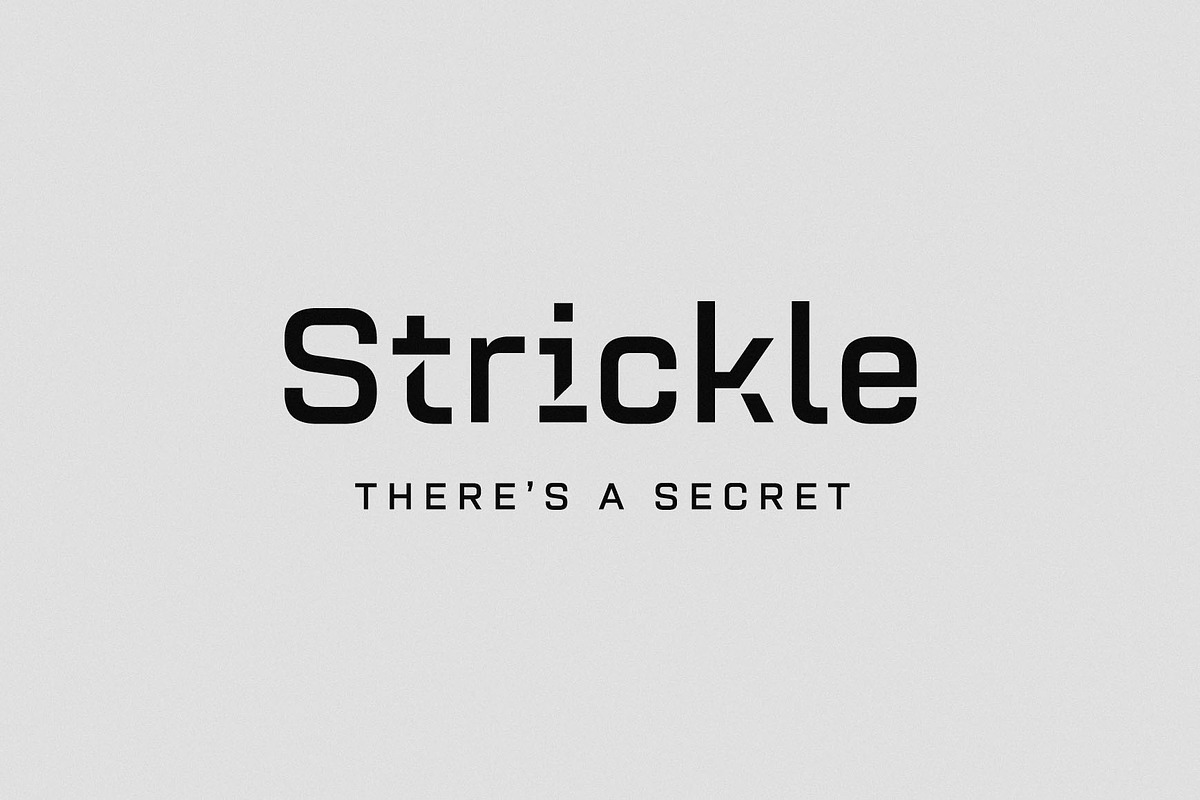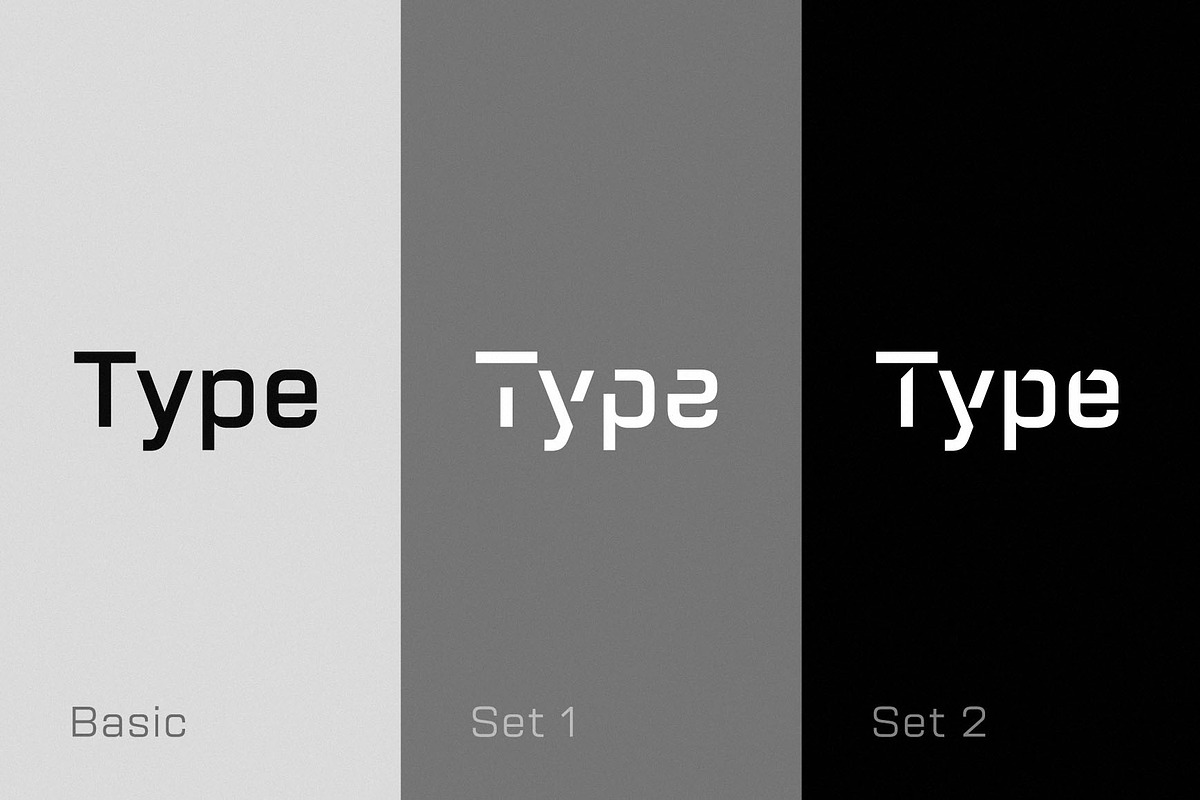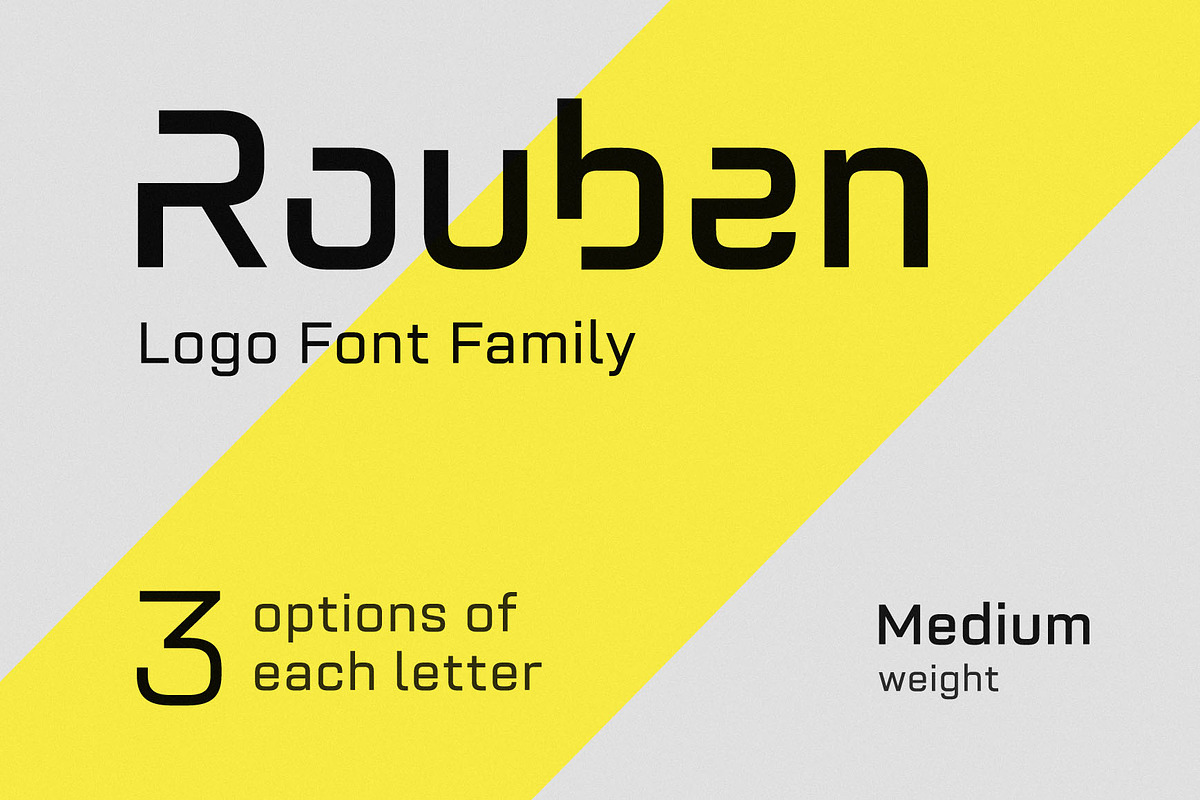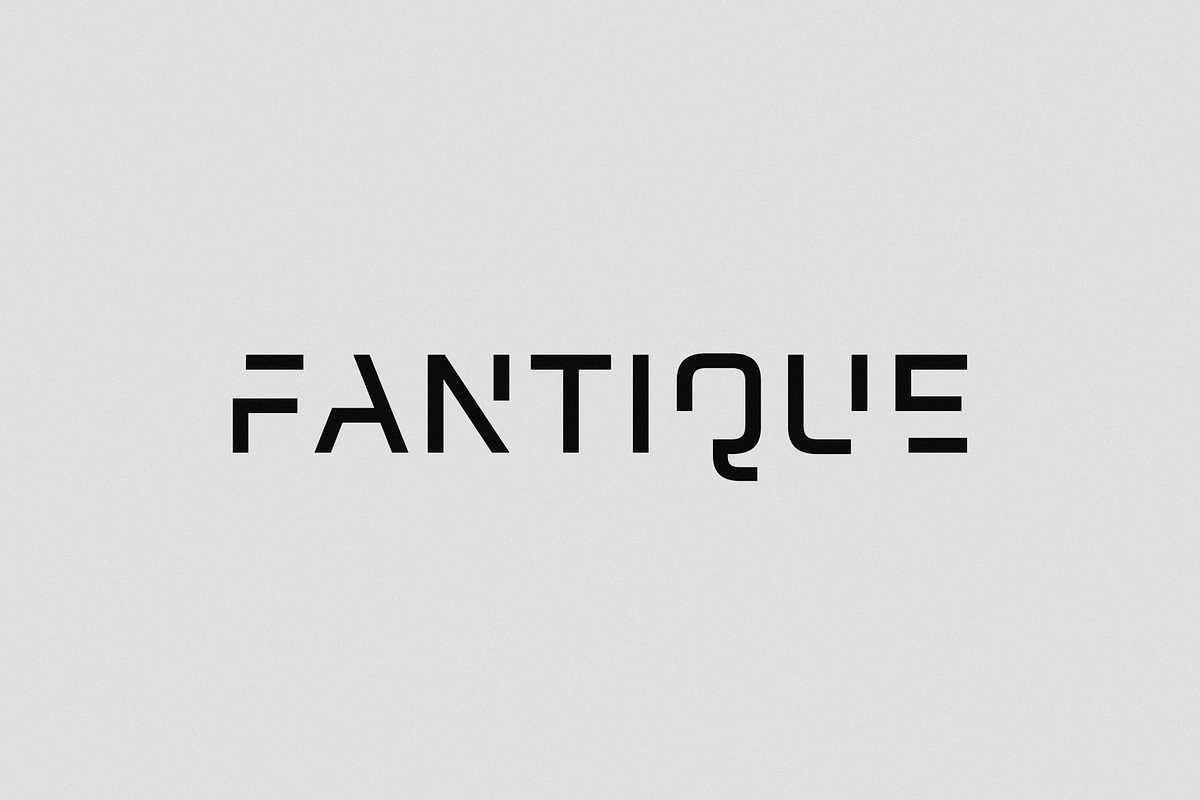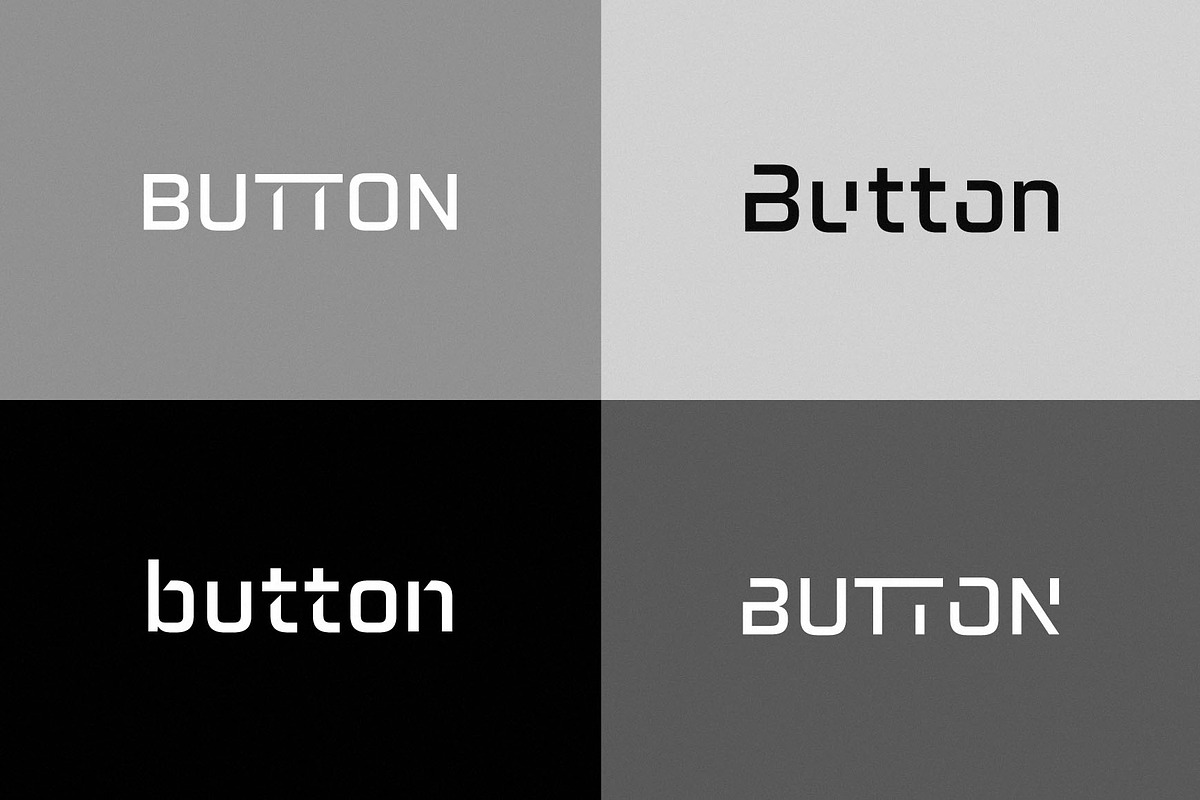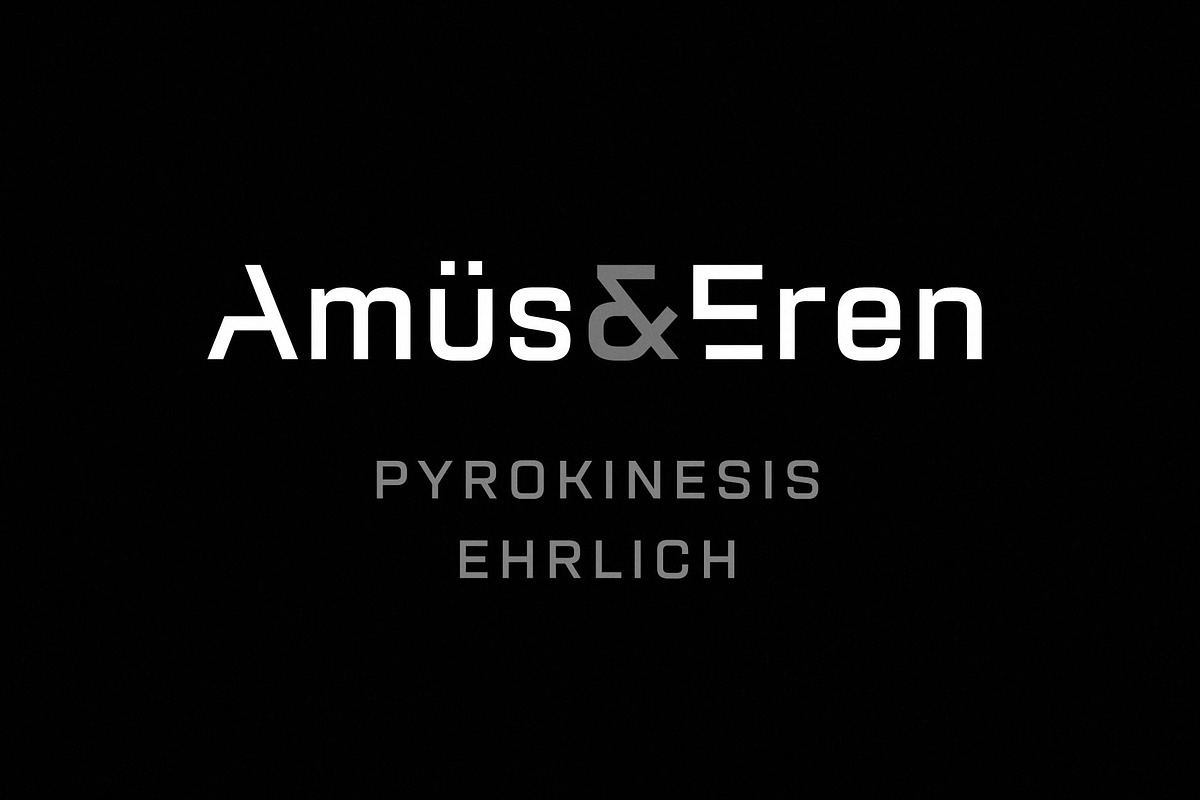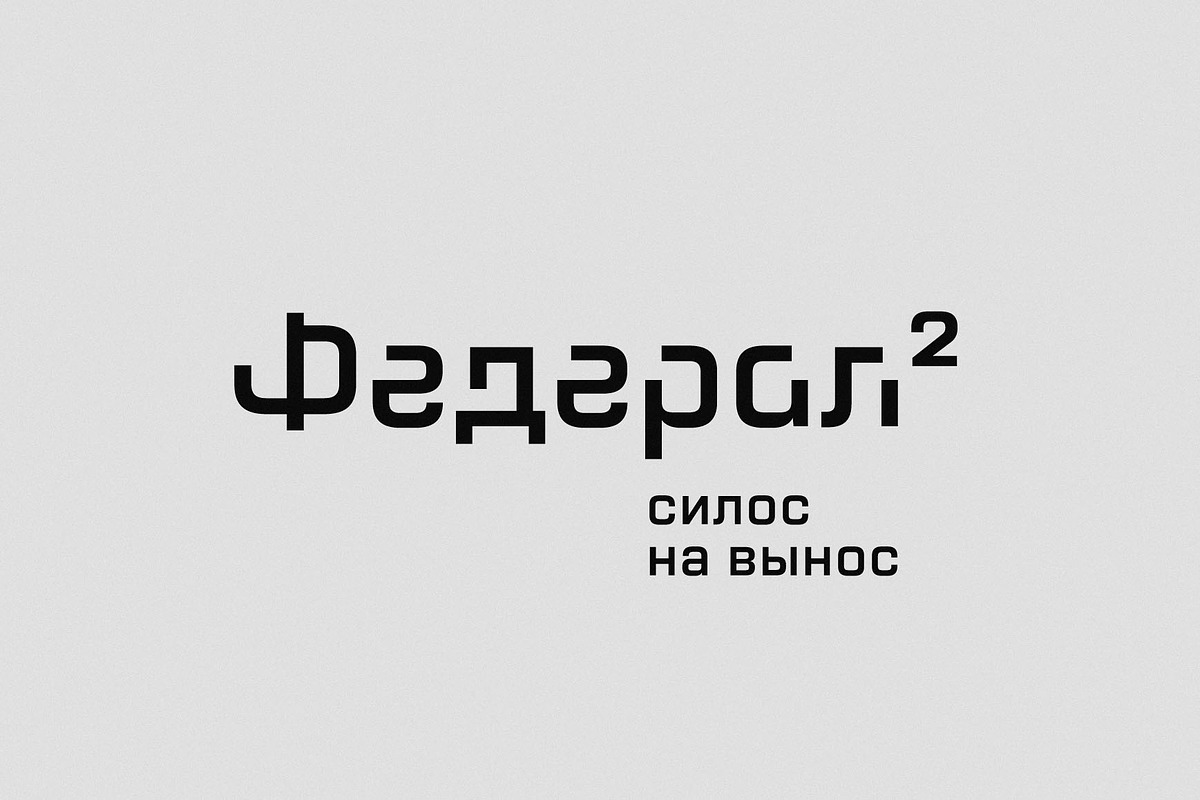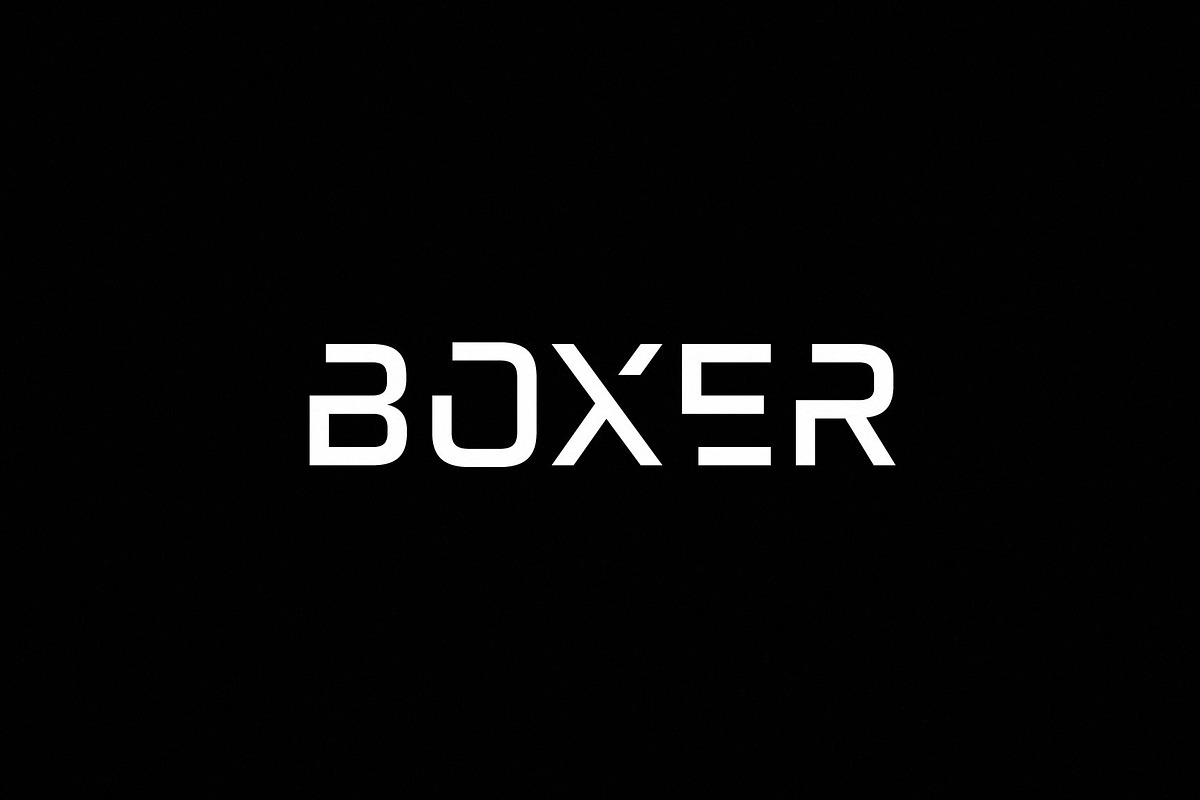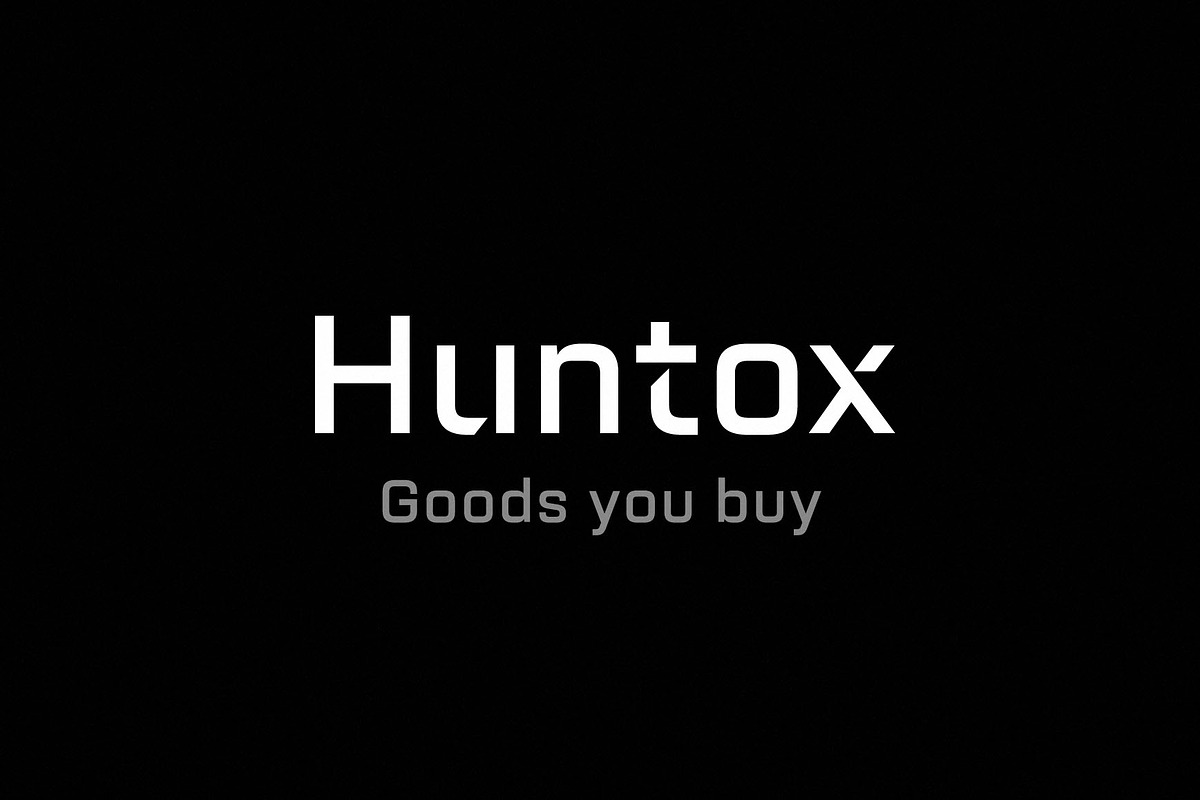
Rouben Medium - Font For Logos
Rouben Medium is a font for design of minimalistic logos. The font is suitable for creating wordmarks, titles, taglines. Use alternative characters to emphasize separate letters in your text.
The font contains:
- 3 options of Latin letters
- 3 options of multilingual letters
- 3 options of Cyrillic letters
- numbers
- extra characters
- punctuation